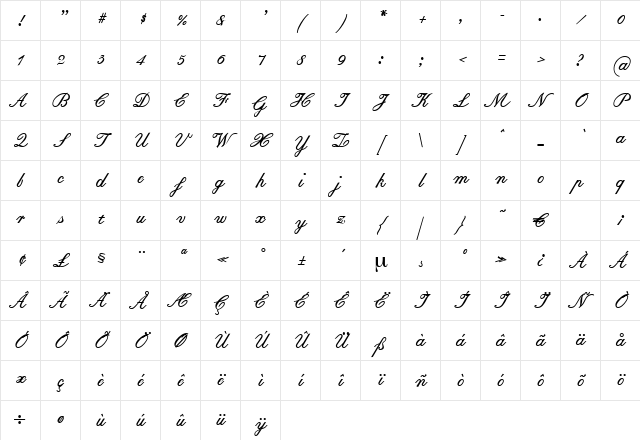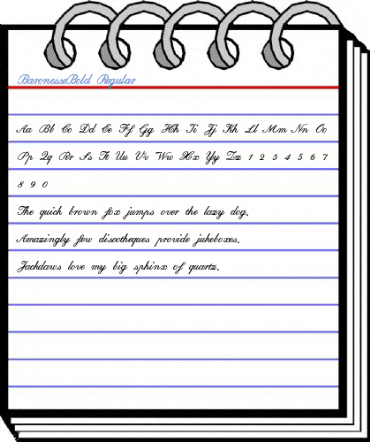
BaronesseBold Regular
Design Context for BaronesseBold
BaronesseBold is a composed and adaptable typeface that performs quietly and consistently across a wide range of design contexts. Its bold stroke weight gives it real presence on the page.